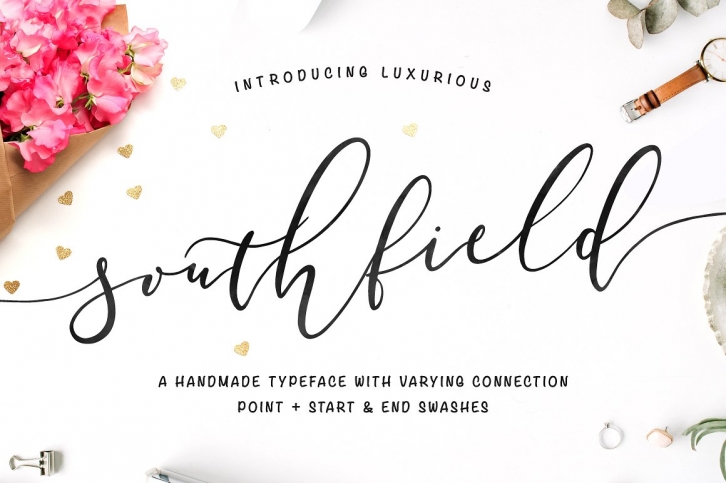
Southfield Typeface is a great font that was designed by WornOutMedia. Imagine the amount of combinations you can create using this font! The archive is 21.61 MB and it was released on May 12, 2017. Southfield Typeface looks beautiful on wedding invitations, greeting cards, logos, posters, labels, t-shirt designs, logos, business cards and is perfect for use in ink or watercolor works, fashion, magazines, packaging and food menus, children's books and more!